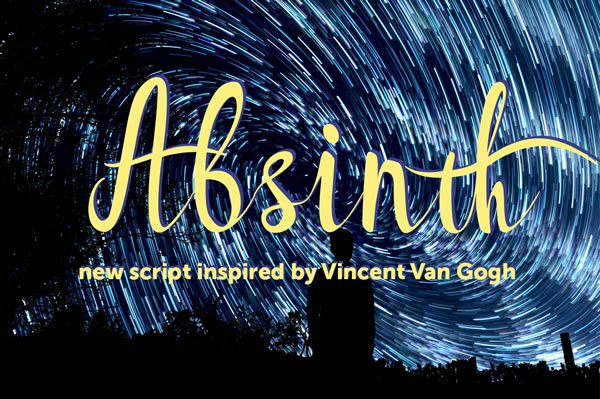
Unleash the Artistic Flair with Absinth Font
For designers, finding that creative spark is crucial. That’s why we’re excited to introduce the Absinth Font, a hand-painted, handwritten font inspired by the masterful works of Vincent van Gogh. This unique font is not only a tribute to the artist’s letters to his brother but also a tool for designers to add a touch of elegance and sophistication to their projects.
With the Absinth Font, designers can tap into the artistic essence of Van Gogh’s style and infuse their work with a sense of history and culture. Whether you’re working on a branding project, creating a stunning visual identity, or crafting a beautiful typography piece, the Absinth Font is sure to be a valuable addition to your design toolkit.
Key Features of Absinthe Font
- Unique Characteristics: The font’s distinctive curves and lines evoke the elegance of the Art Nouveau style, while its modern feel makes it suitable for contemporary designs.
Review of Absinth Font
At first glance, the Absinth Font catches the eye with its unique and bold design. ✨ I love how it’s inspired by the classic Art Nouveau style, giving it a touch of elegance and sophistication.
The font’s versatility is another major plus. ✨ It works well for both digital and print media, making it a great choice for designers looking for a consistent aesthetic across different platforms.
Here are some of the font’s key features:
- Highly legible, even at small font sizes
- Wide range of weights and styles to choose from
- Perfect for creating a sense of drama and luxury
- May not be suitable for body text due to its bold and ornate design
- Some users may find it difficult to read in certain lighting conditions
Overall, I think Absinth Font is a great choice for designers who want to add a touch of sophistication and elegance to their projects. While it may not be suitable for every project, it’s definitely worth considering for titles, headings, and other display text.
Tip: Use Absinth Font for headings and titles to add a touch of elegance to your design.
Tip: Use Absinth Font for text overlays and captions to add a vintage touch to your design.
Tip: Use Absinth Font for titles and headings to add a touch of sophistication to your presentation or document.
Absinth Font is ideal for:
- Designing vintage-inspired posters and flyers.
- Creating elegant invitations and event materials.
- Adding a touch of sophistication to business presentations and reports.